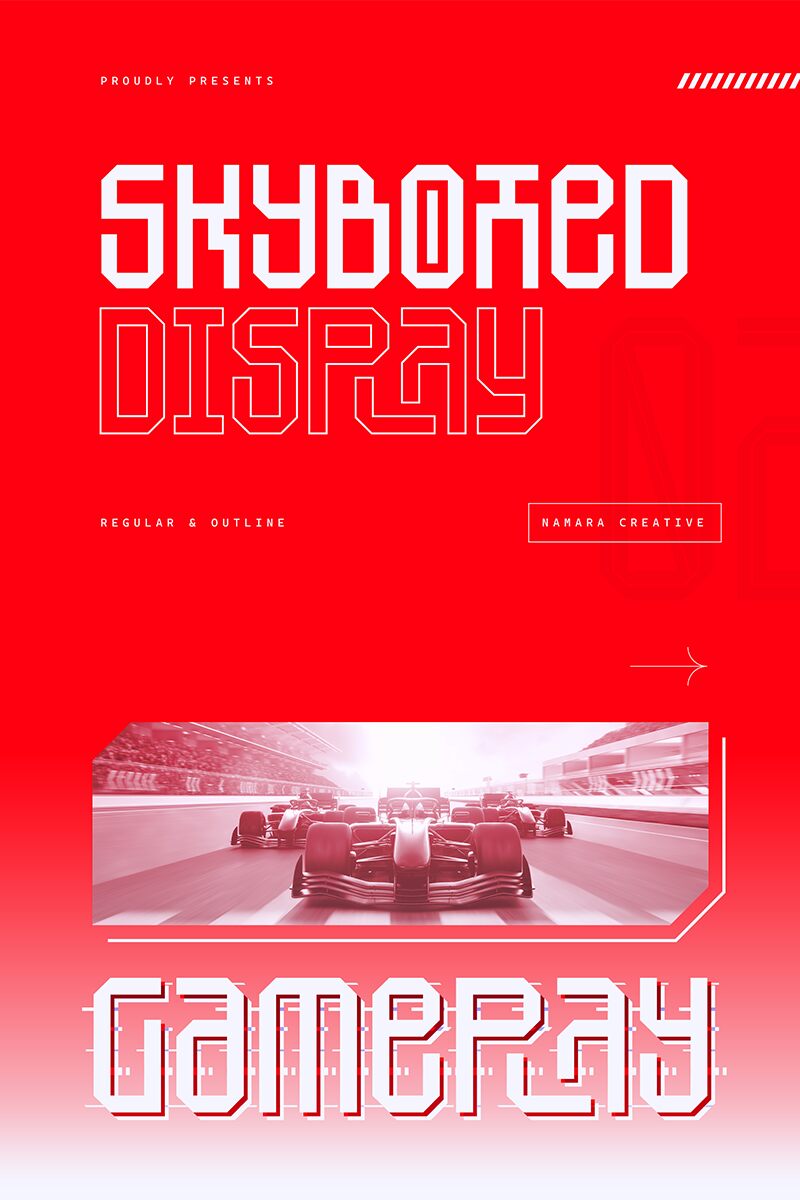
SkyBoxed font is Namara Creative's modern typeface designed in a techno style faithful to the visual of digital themes it represents. This font features unique shapes, futuristic geometric design, and strong angular formations meant to be eyecatching and readable. With outstanding characters that are easy to spot, SkyBoxed calls the viewer to attention and has a strong presence when used on a screen or print.
Incorporate this font into varied design settings such as invitations to a nightclub, DJ poster designs for an event, business cards, apps and websites, or gaming interface designs. With additional tech-related use cases such as communication services, mobile devices, and software, apps can also capitalize on this font's attributes to implement a strong style and stand out from the crowd. As the font carries a retro look, it can be used in settings with a similar theme such as retro movie posters and signage, arcade visuals, and designs featuring satirical tech references (ex: older movies about the future and technology).
Experience the next level of typography with SkyBoxed, a modern futuristic display font. This powerful font showcases a cutting-edge design inspired by strength and assertiveness, making it a perfect choice for captivating headlines and eye-catching designs.